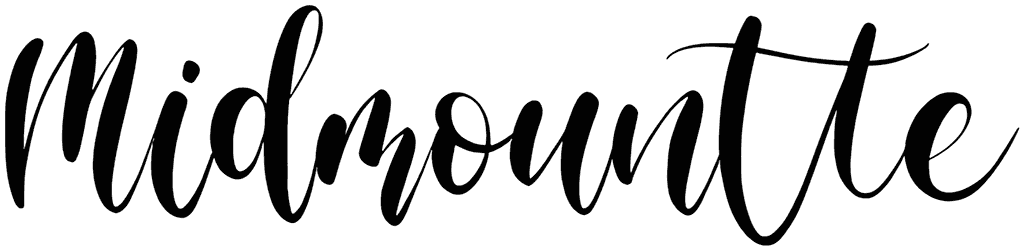
Midmountte Font
With a classic design and beautiful appearance, Midmountte can be the best thing you need to excel in your customers’ business. This calligraphy font can transport your customers to a personal and human space with absolute communication and provide them with a unique, stylish, and timeless design.
So if you are looking for a special font to design the logo of cosmetic products or want to decorate your new t-shirt with an impressive sentence, have this romantic font in your collection.